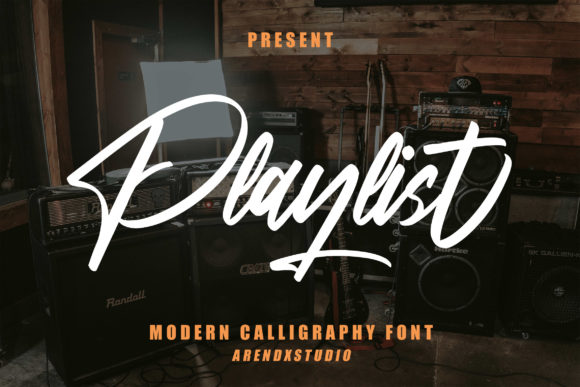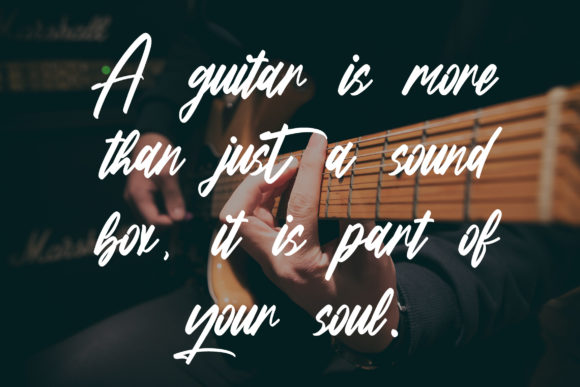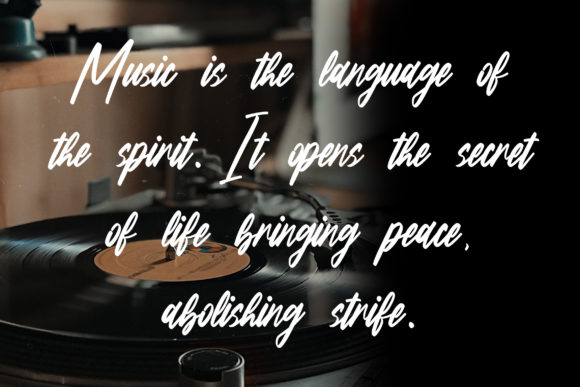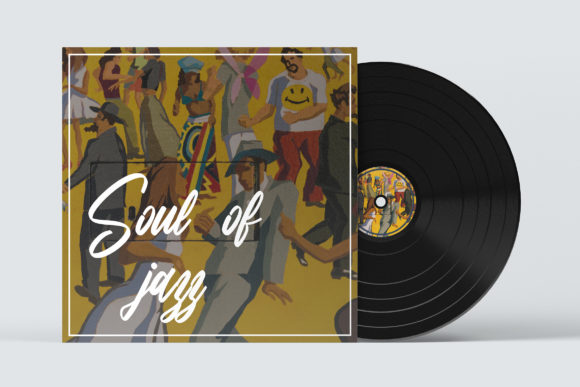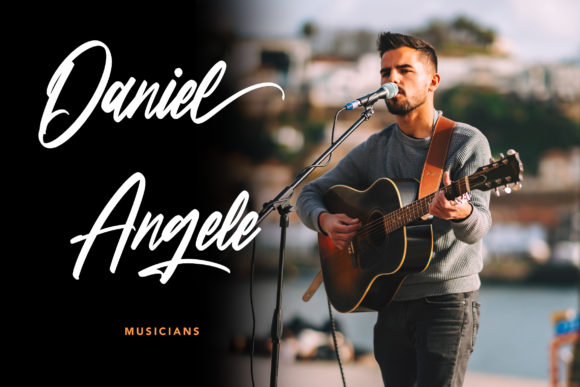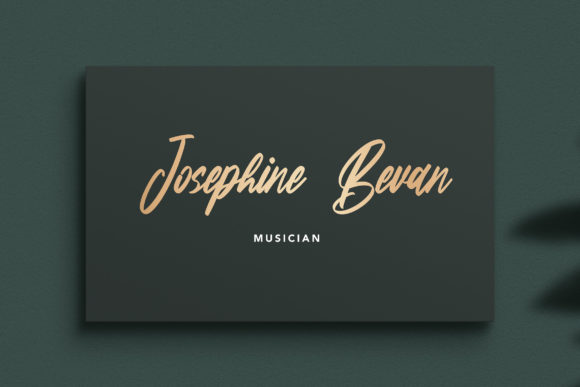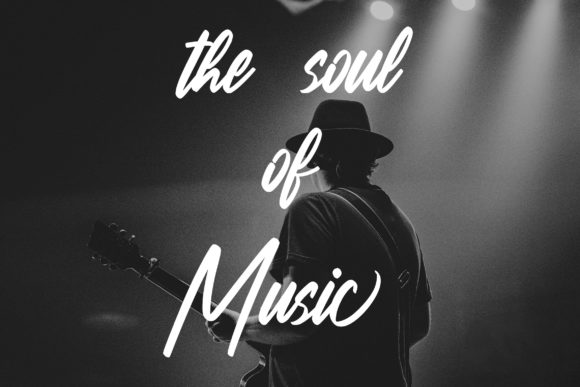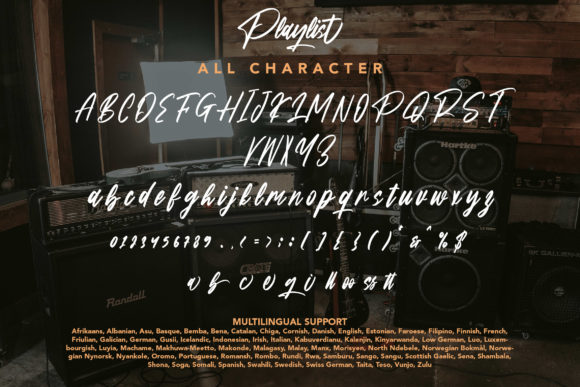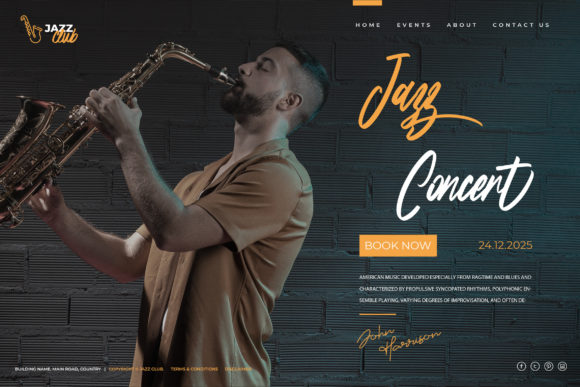
Playlist Font
About Playlist Font
Playlist is a casual and adaptable handwritten font. Not too thin and not too thick, balanced and varied, this font was designed to enhance the beauty of your projects.